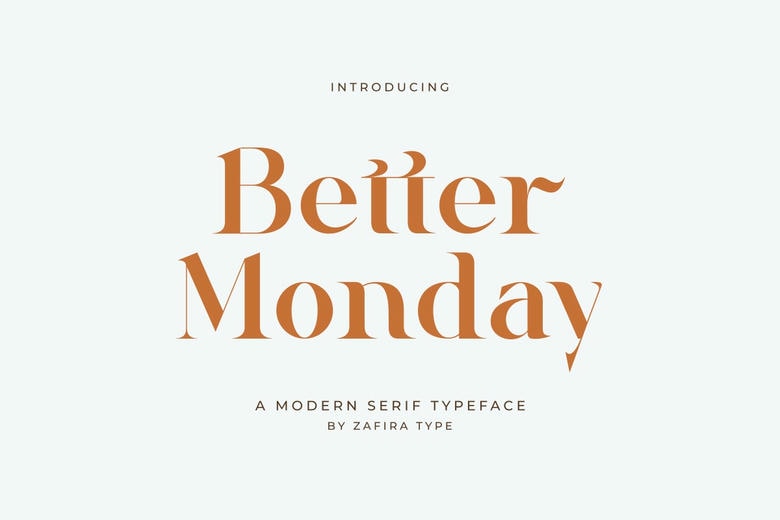
Better Monday Font
Better Monday is a unique serif display typeface that has aesthetic and contemporary features. Better Monday with its contrast between thick and thin and unique angles of the serifs has an elegant look which suits titles, headers or other design features that need to look attractive and classy.
Better Monday can be spotted in the design of posters, advertisements or magazine covers because it is able to draw attention and at the same time it does not need to lose its clarity. Their distinctive design of the letters makes them outstanding and eye catching element that is why they are successful in the hands of designers who want to make bold and impressive statement.
Better Monday Serif Font